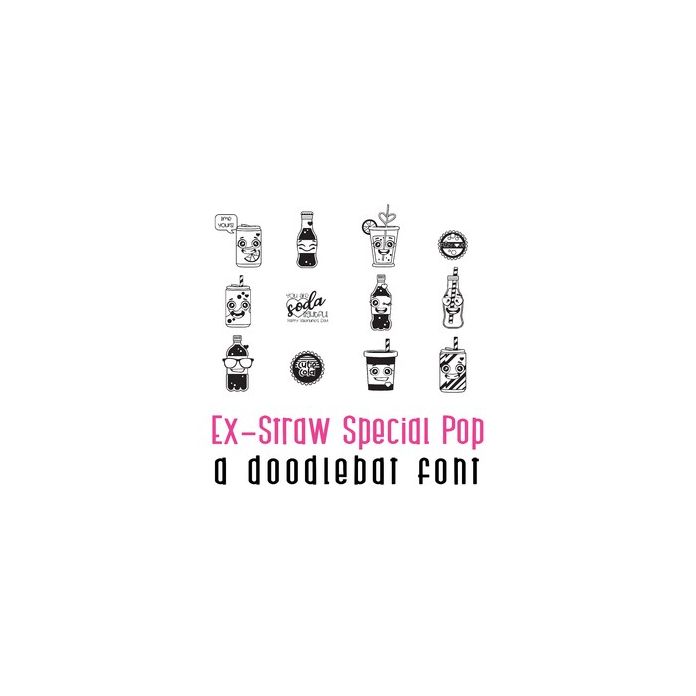
This fun doodlebat font features adorable kawaii style soda pop and crazy straws. Perfect for Valentines, gifts, cards, crafts, classrooms, planner stickers, scrapbook pages and more!